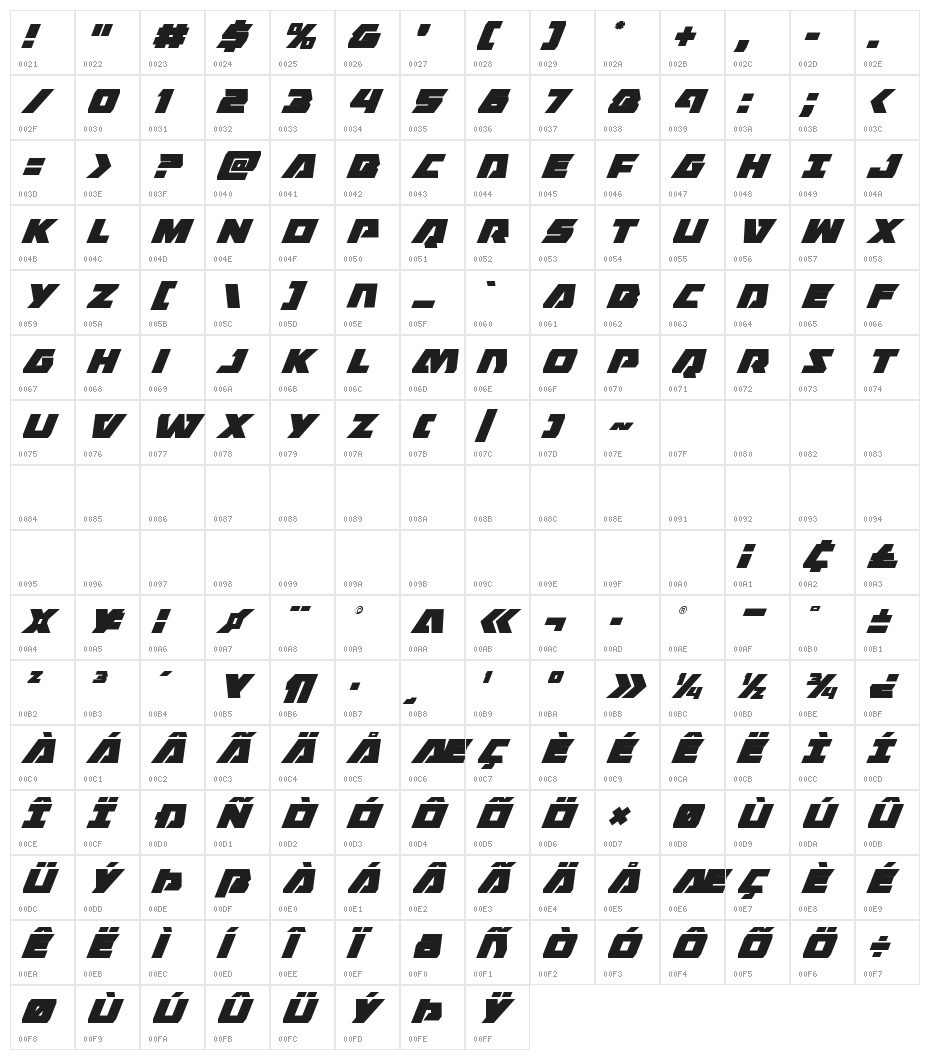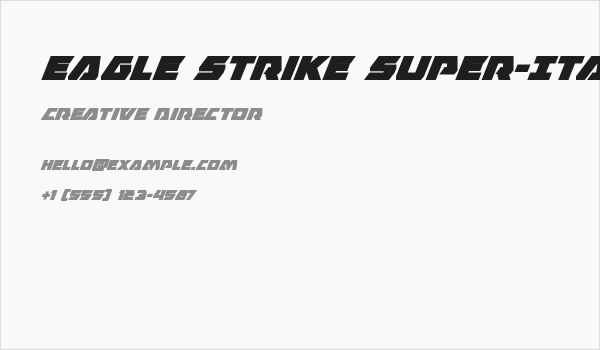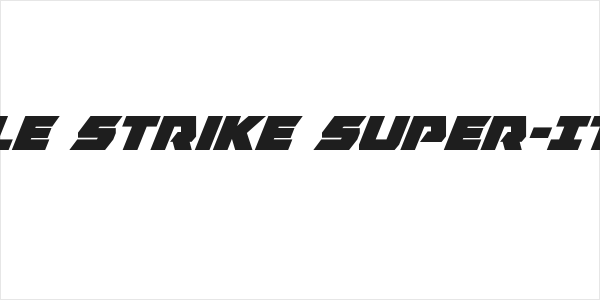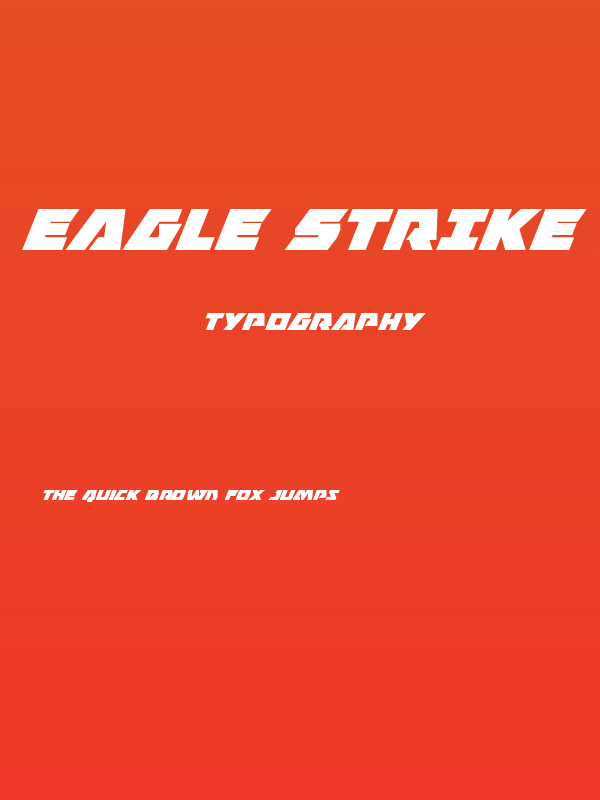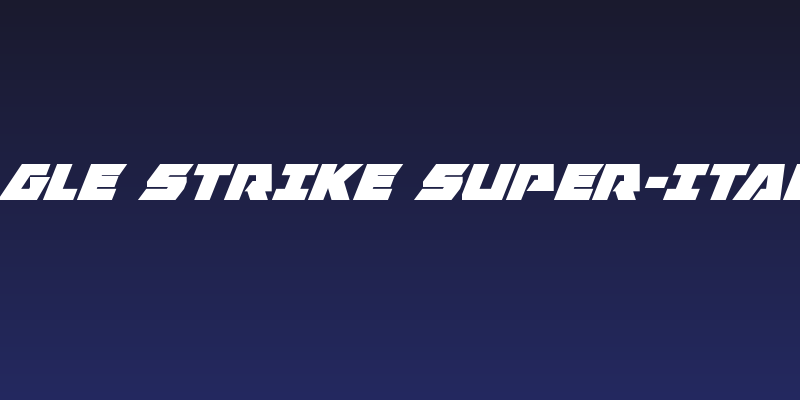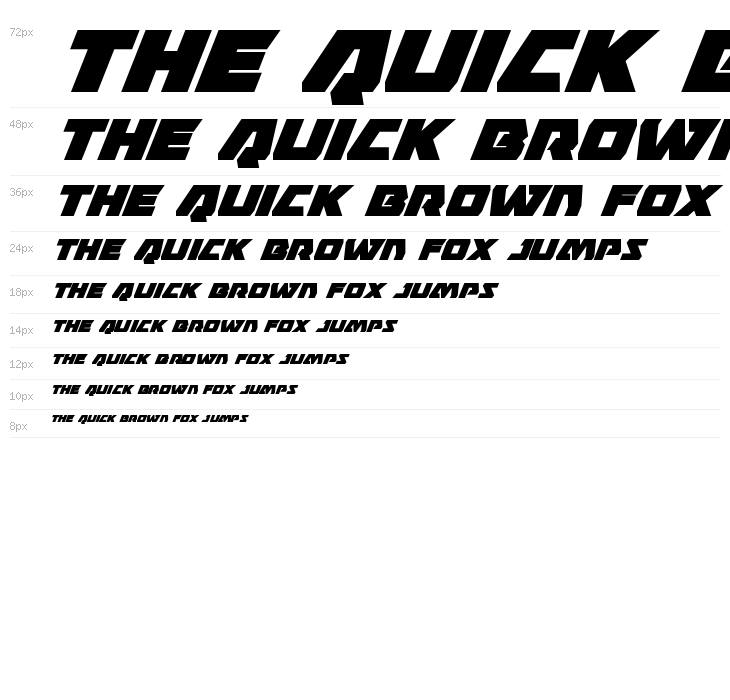
Eagle Strike Super-Italic Font
Eagle Strike Super-Italic Description
This font features a bold and dynamic design with sharp, angular edges and a strong italic slant, giving it a sense of motion and energy. The uppercase and lowercase letters maintain a consistent style, with each character exhibiting a unique geometric form. The numerals and special characters follow the same design principles, ensuring a cohesive appearance across all glyphs. The font's aggressive and futuristic aesthetic makes it ideal for projects that require a bold statement.
| Overall Style | Futuristic, Dynamic |
| Proposed Projects | Ideal for sports branding, video game titles, action movie posters, and dynamic logo designs. |